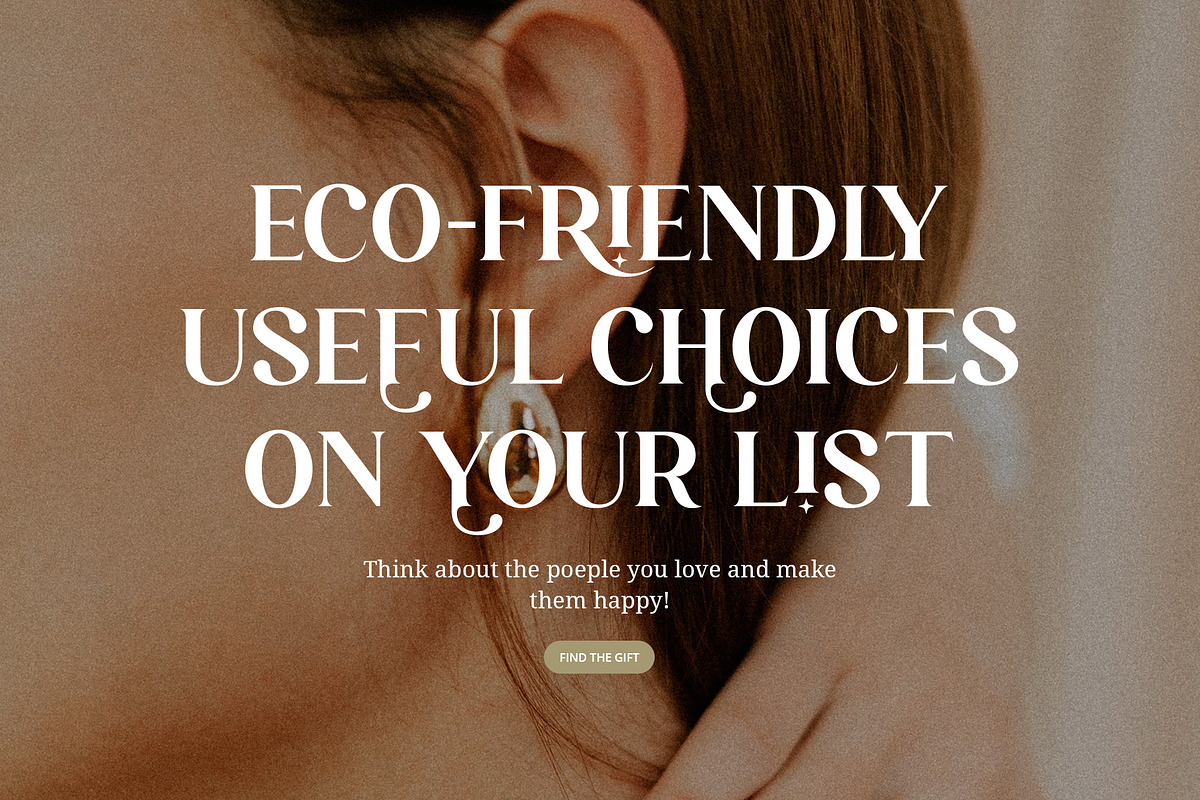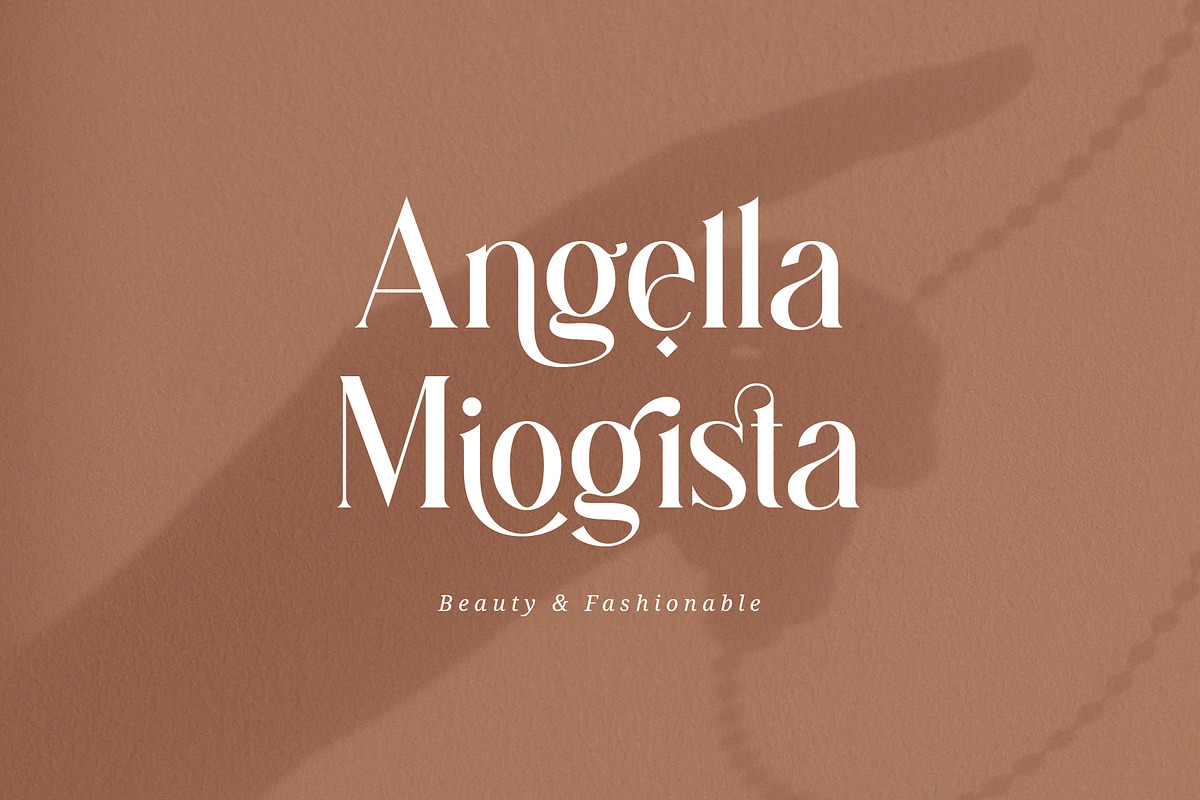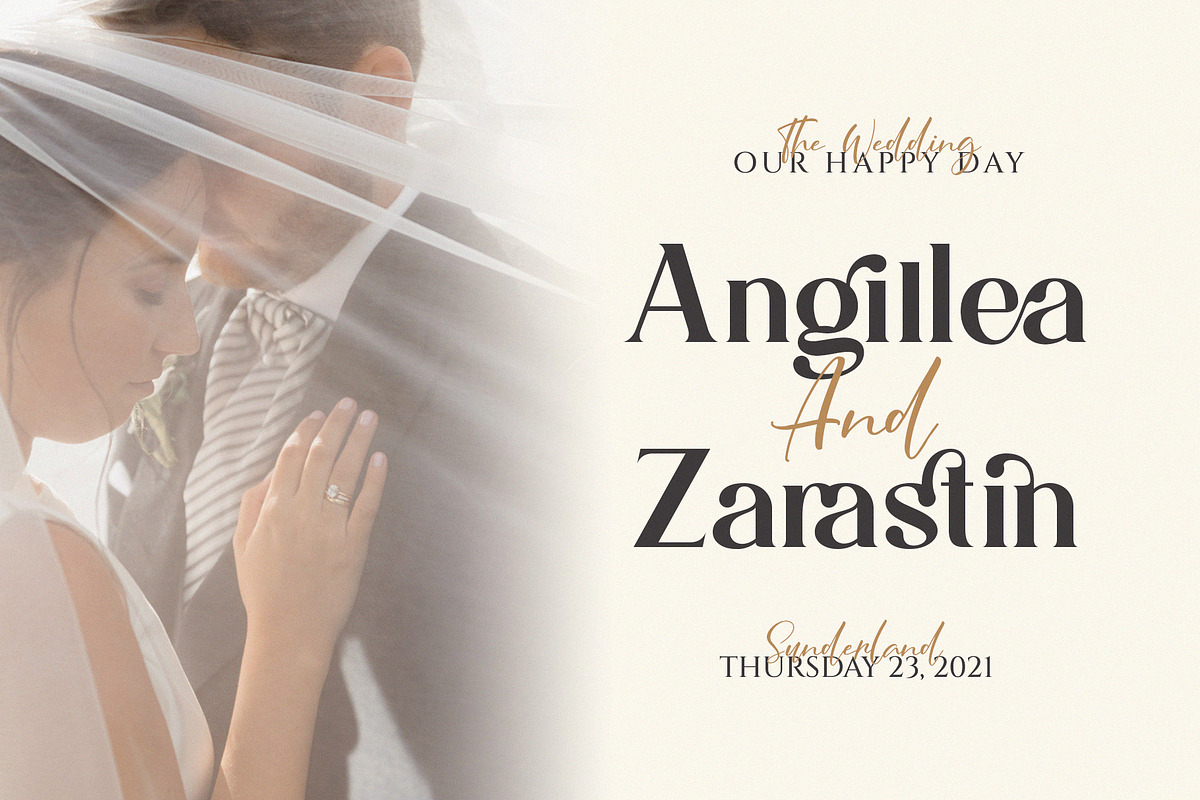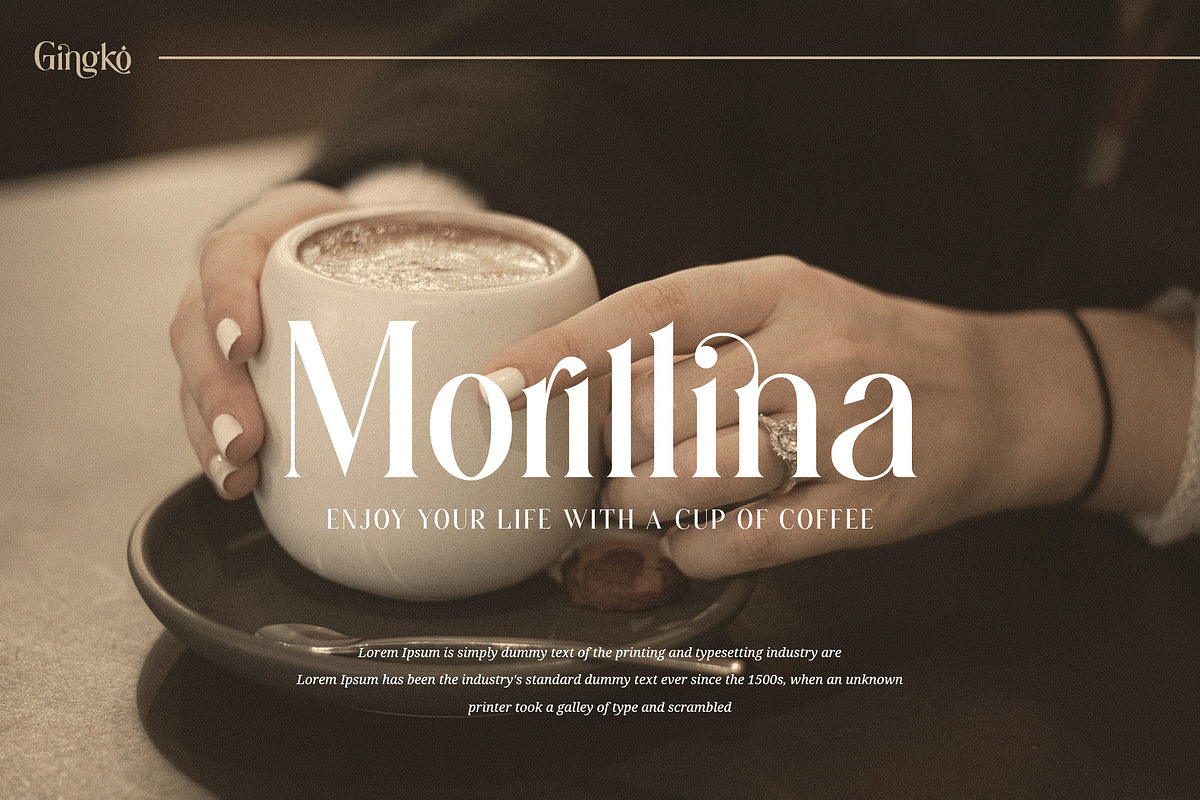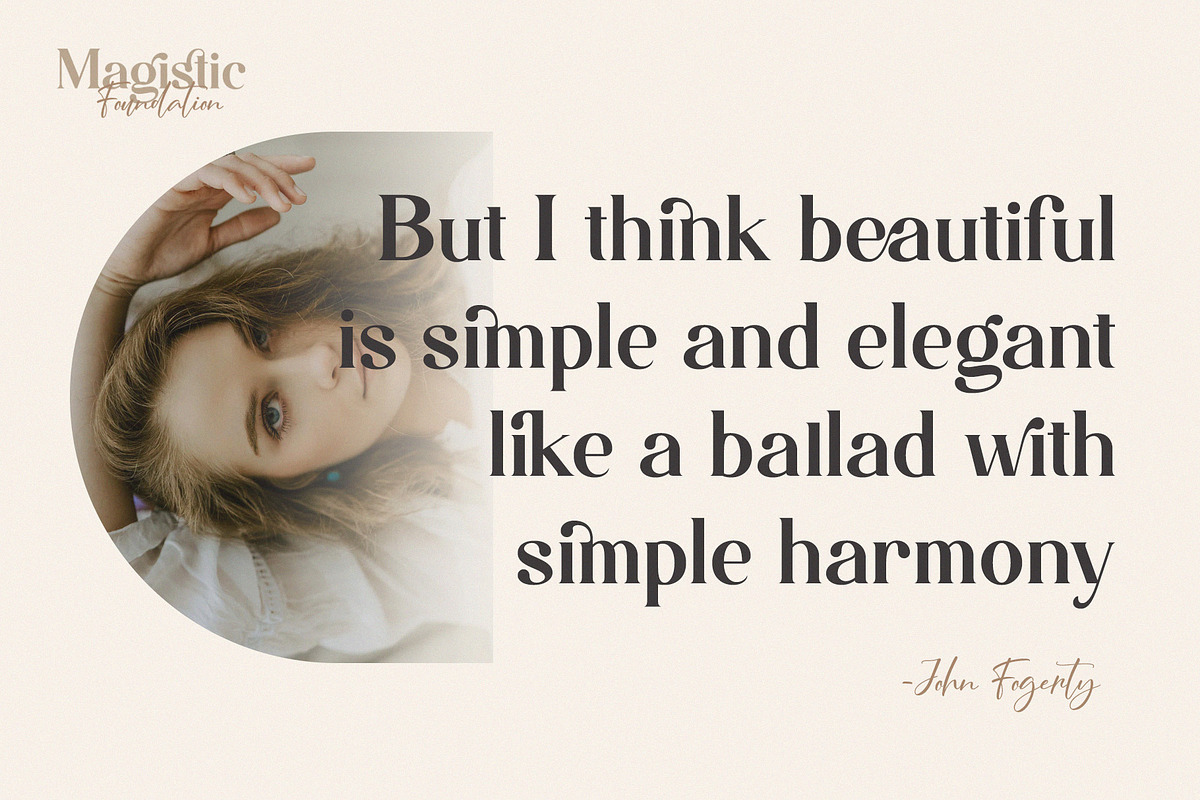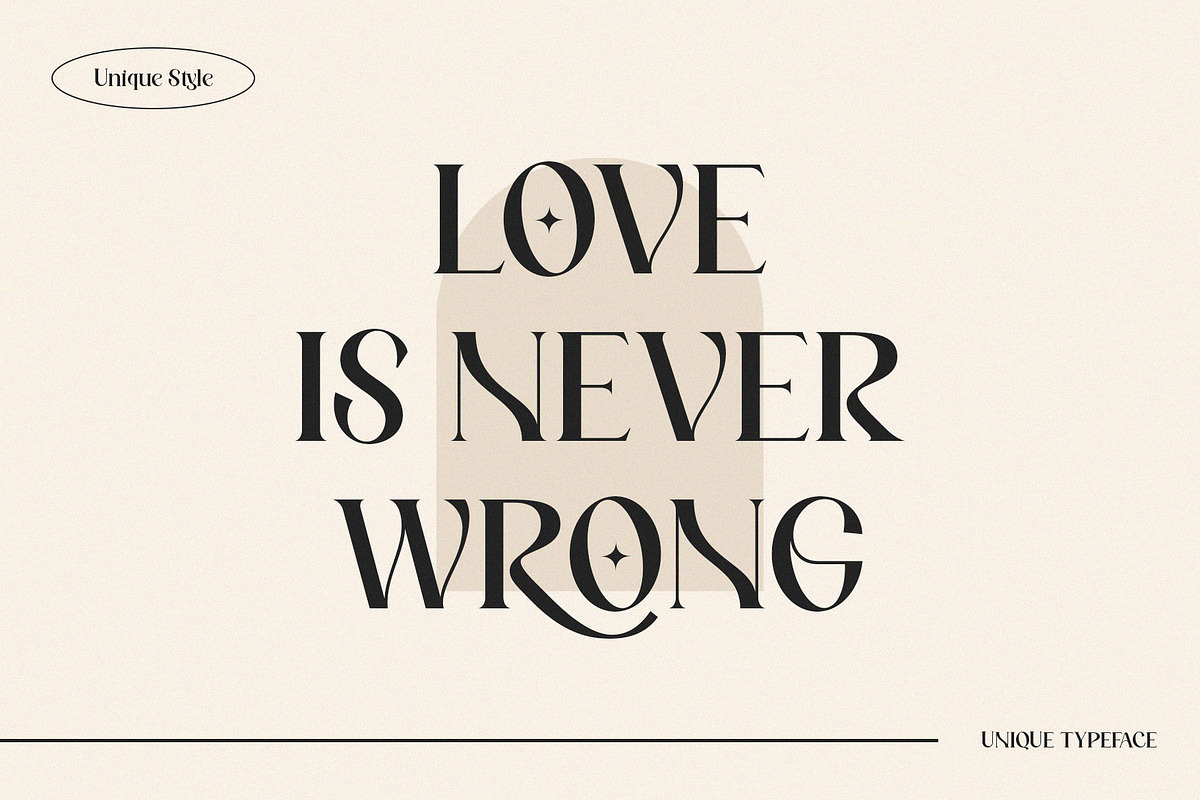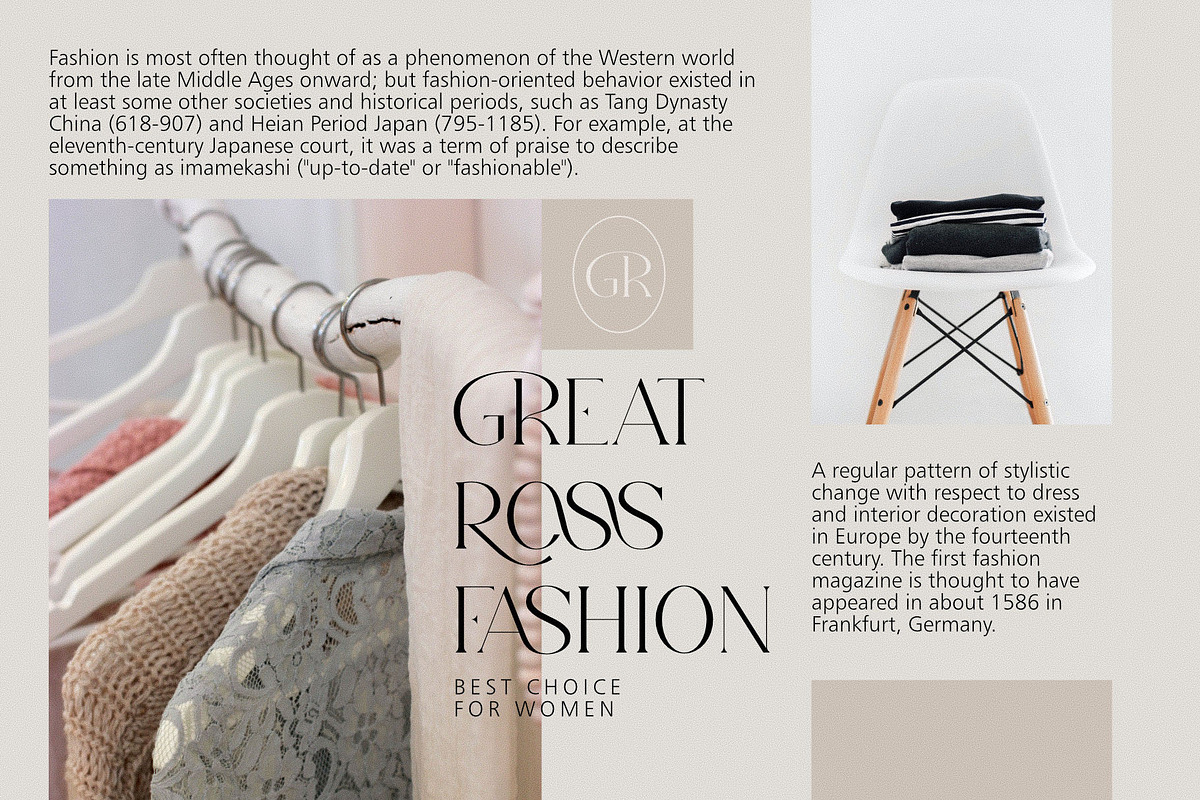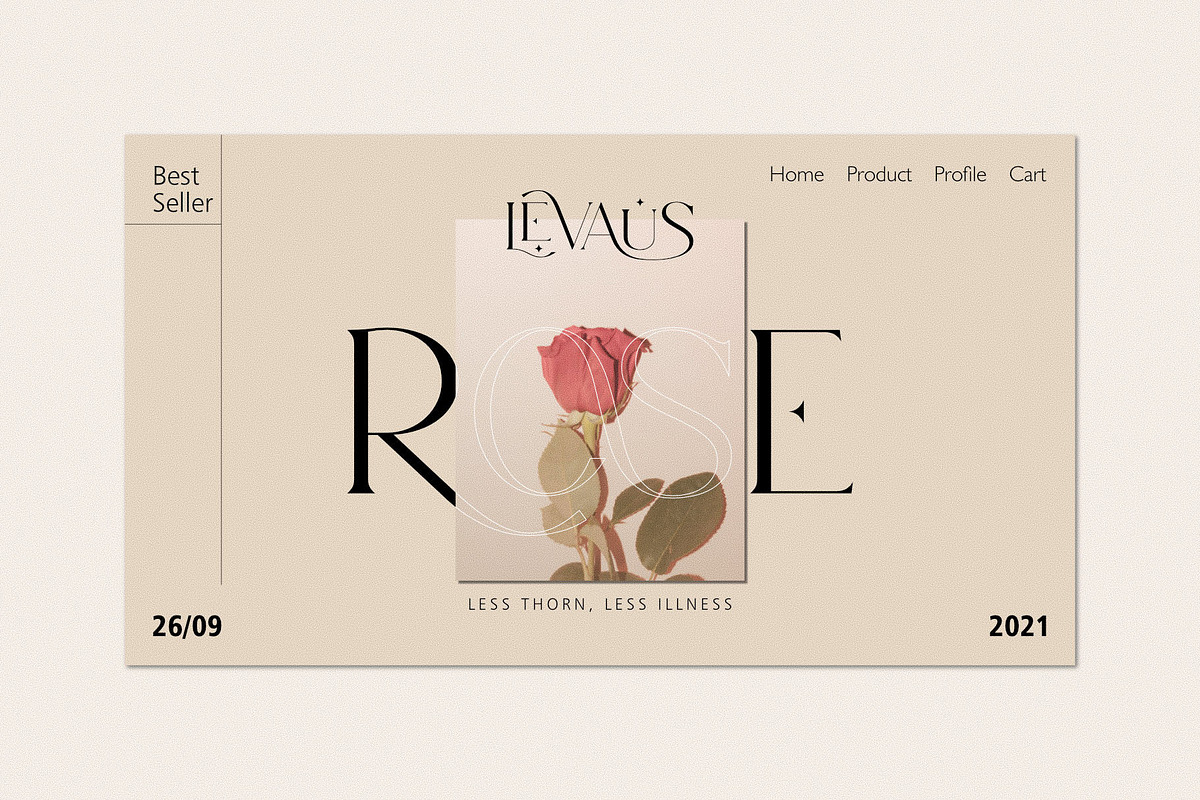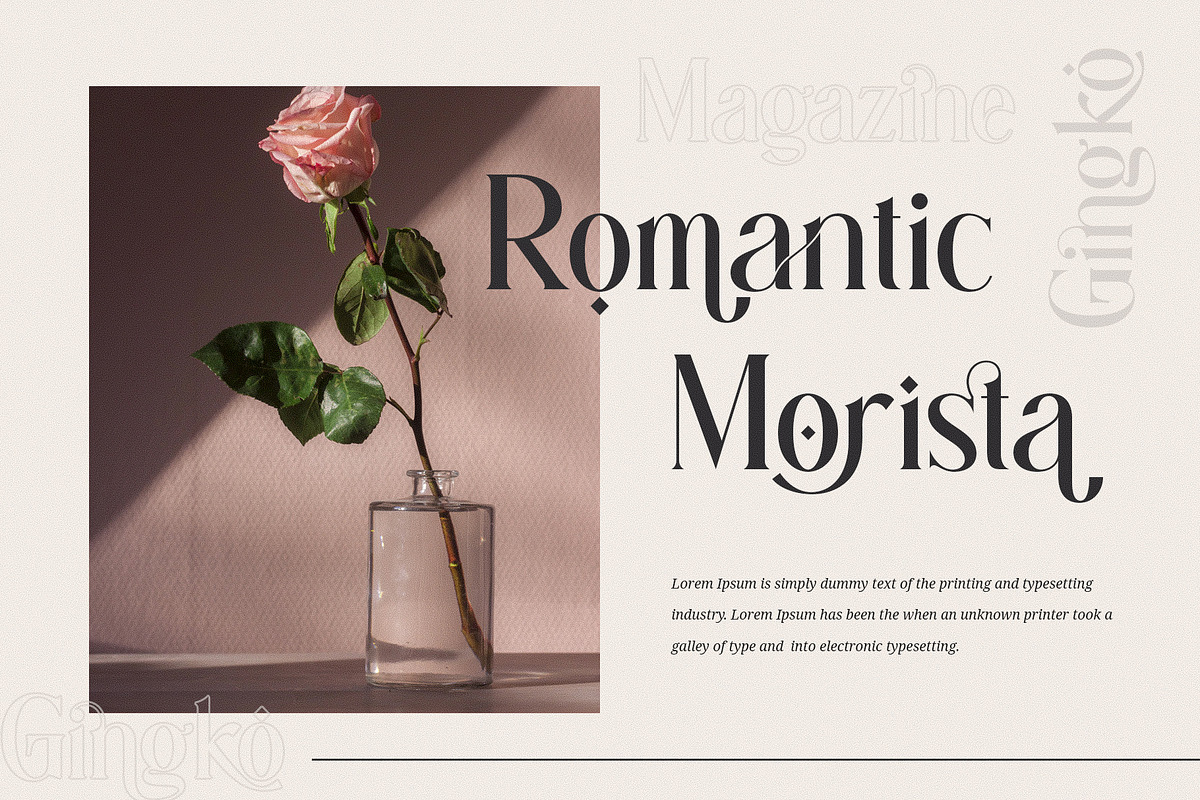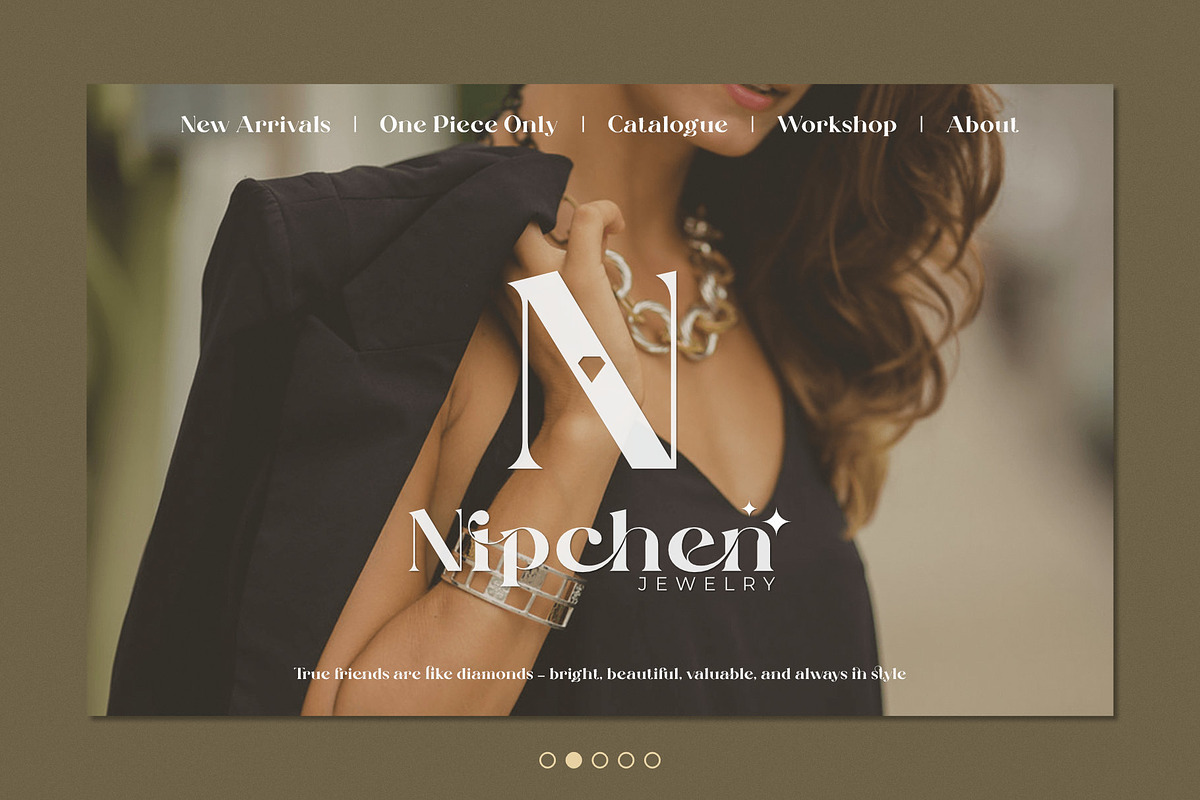
Ligature Font Bundle
WOW!!! NEW LIGATURE FONT BUNDLE - an incredible BUNDLE with the ligature font style and the duo font. Ligature font bundle is suitable font for many creative products & designs. Go ahead and make Branding, Logos, Blog, Social Media, Invites, Wedding, Poster, Magazine, Quotes, Packaging, Photo Overlays, Poatcard, Advertisements, Fshion and others. This bundle contain 9 font
https://crmrkt.com/jvozVb Magistic - Duo Ligature Typeface
https://crmrkt.com/Qx9AyB Levaus - Ligature Typeface
https://crmrkt.com/yomVw5 Gingko Ligature Typeface
https://crmrkt.com/6dVWKz Markova Serif Font
https://crmrkt.com/VraEd4 Larissa - Ligature Typeface
https://crmrkt.com/Kxa3G4 Wilkista - Ligature Typeface
https://crmrkt.com/xEmQrj Minthe - Ligature Typeface
https://crmrkt.com/eMEDJW Yolinda Unique Typeface
https://crmrkt.com/2dKqQN Foundation - Sugnature Font